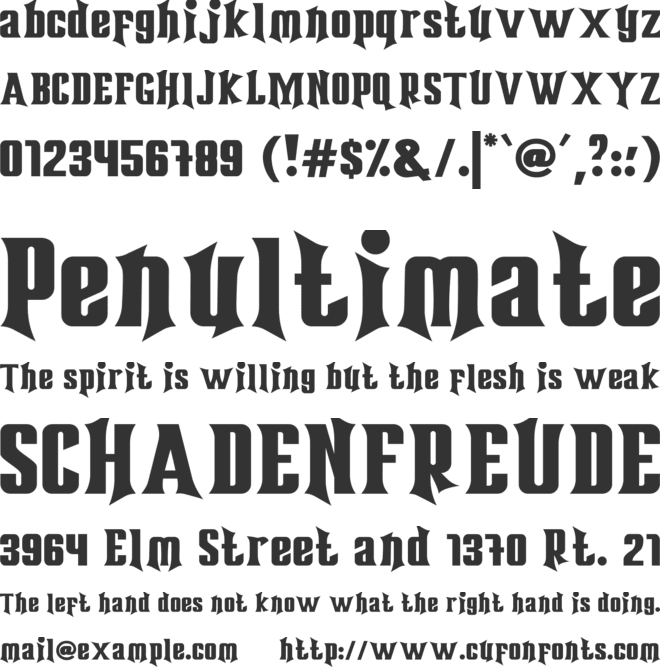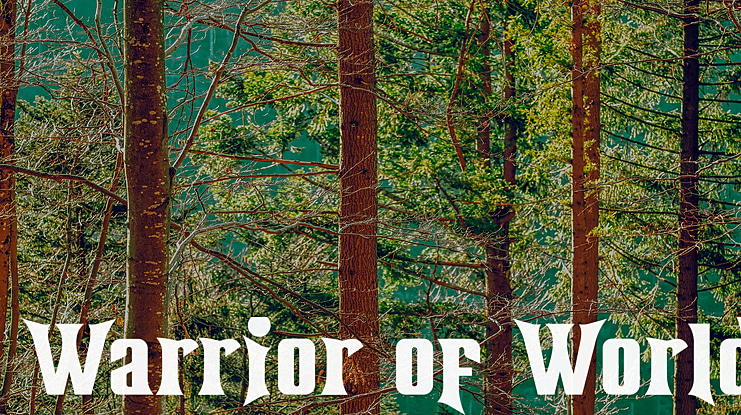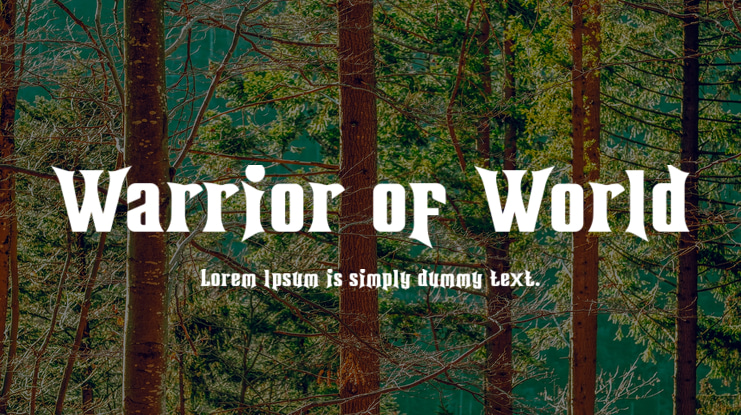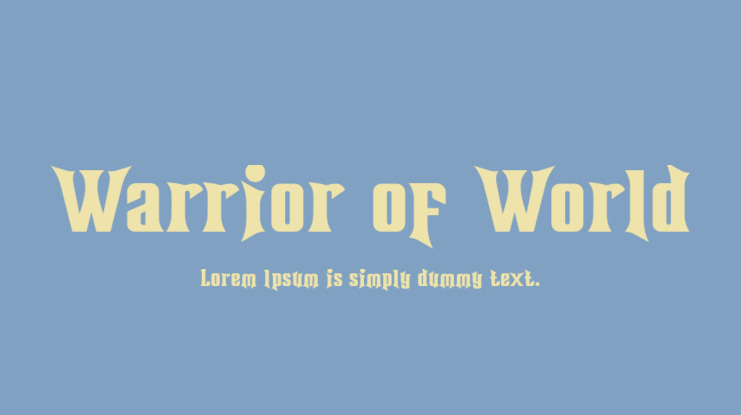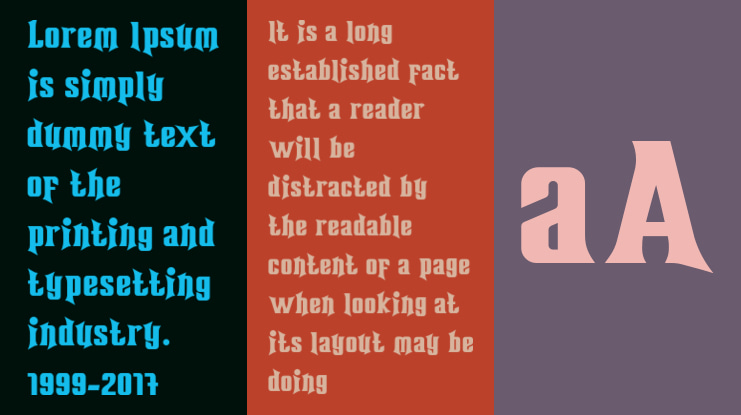
Warrior of World Font
Introducing a new typeface Warrior of World is a modern serif display. it has a unique construction. The simplicity and smoothness of its forms are combined with the sharpness and suddenness of the details. There are two styles hollow and regular. The font is intended for short inscriptions and texts and is adapted for use on the screen.
Warrior of World is ideally used for movie posters, product presentations, elegant logo designs, packaging or invitation cards, or heading text.
Features Two style/ Numbers & Punctuation / Extensive Language Support